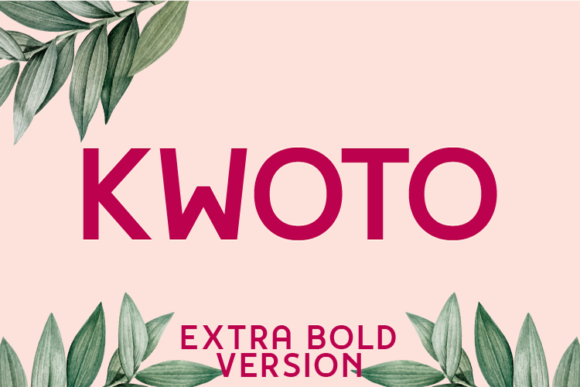
Are you ready to infuse your creative projects with a burst of boldness and sophistication? Look no further than Kwoto Extra Bold, the cutting-edge sans serif font that will elevate your designs to new heights.
Crafted with meticulous attention to detail by the renowned Nan Design, Kwoto Extra Bold exudes a modern and captivating aesthetic that is sure to leave an unforgettable impression. Its sharp lines and striking curves create a harmonious balance, providing both elegance and readability, making it an ideal choice for a wide range of design projects.
Immerse yourself in the versatility of Kwoto Extra Bold, a font that effortlessly adapts to your creative vision. Whether you're crafting logos that demand attention, designing posters that command a presence, or creating book covers that entice readers, Kwoto Extra Bold is your perfect partner. Its ability to seamlessly blend with various design elements ensures that your message will always take center stage.
Unleash your creativity and let Kwoto Extra Bold add a touch of magic to your branding. With its bold and distinctive appearance, this font will make your designs stand out from the crowd. Create logos that exude strength, posters that grab attention, and book covers that captivate audiences. The possibilities are endless with Kwoto Extra Bold.
Don't settle for ordinary fonts that blend into the background. Embrace the power of Kwoto Extra Bold and watch your designs come to life. Let your imagination run wild as you craft projects that resonate with your audience, leaving a lasting impression that they won't soon forget.